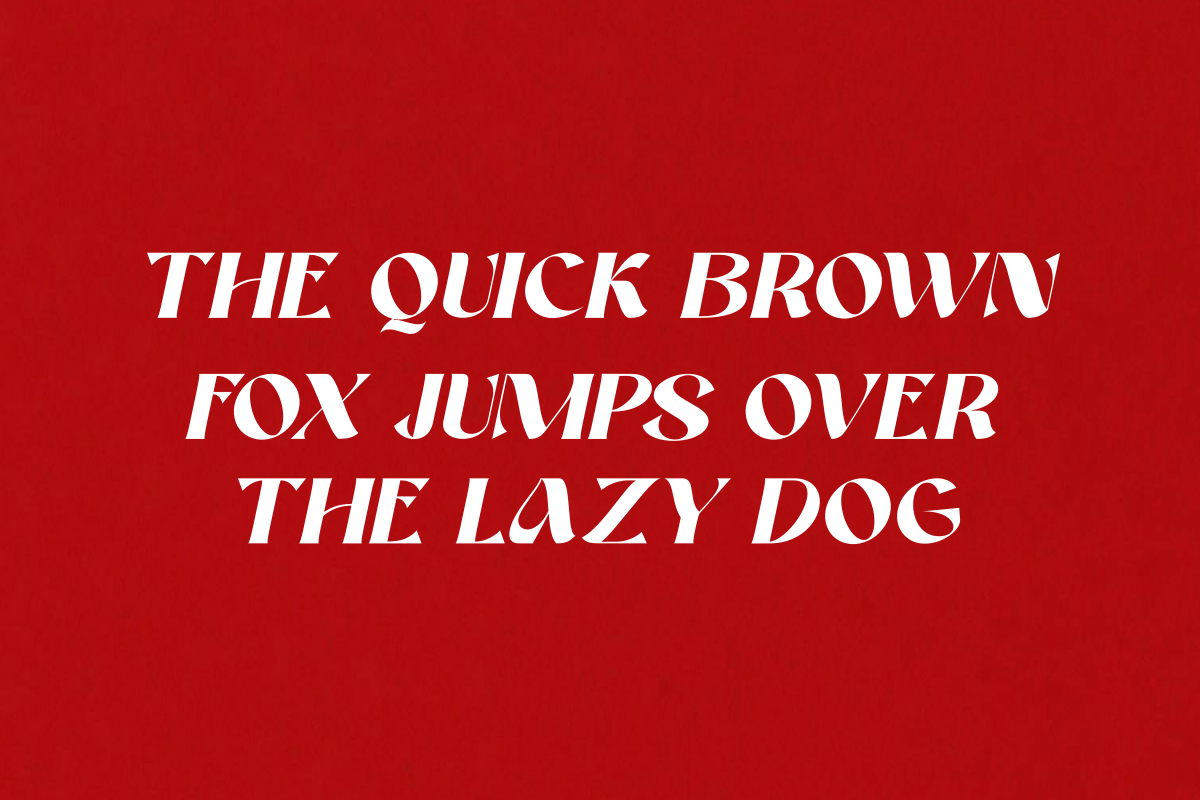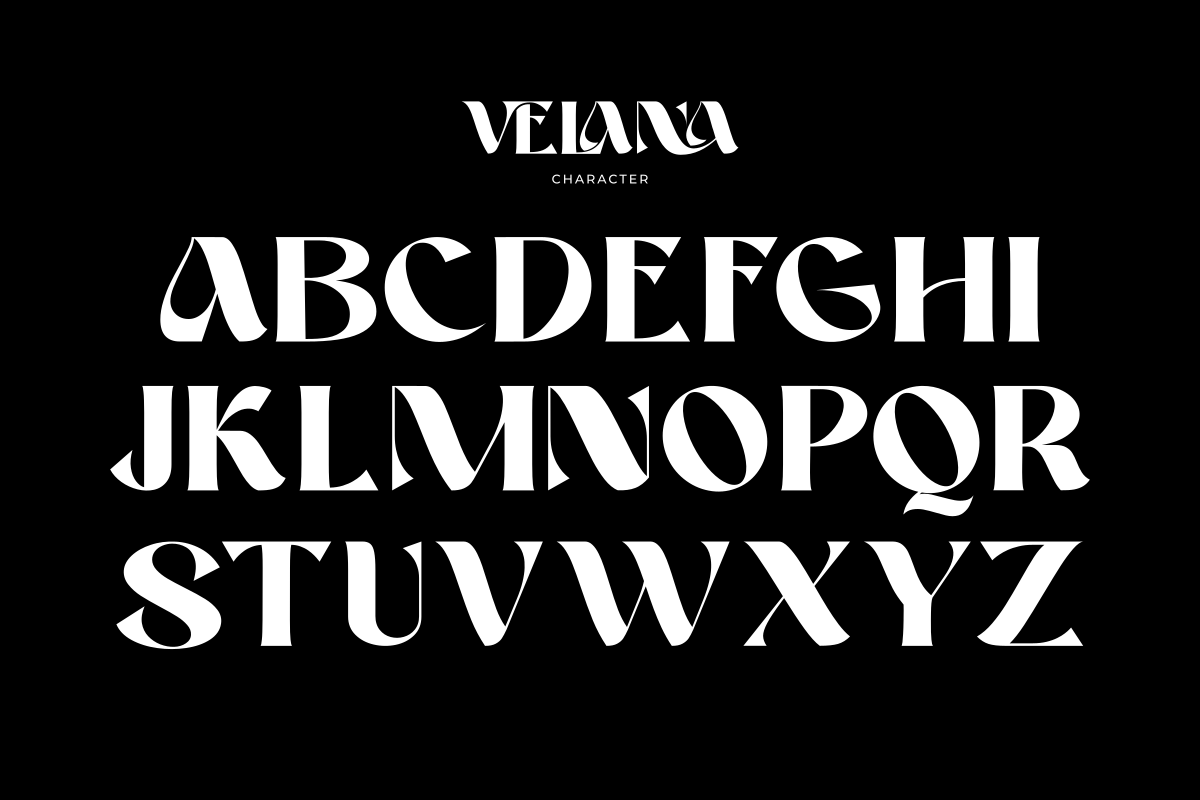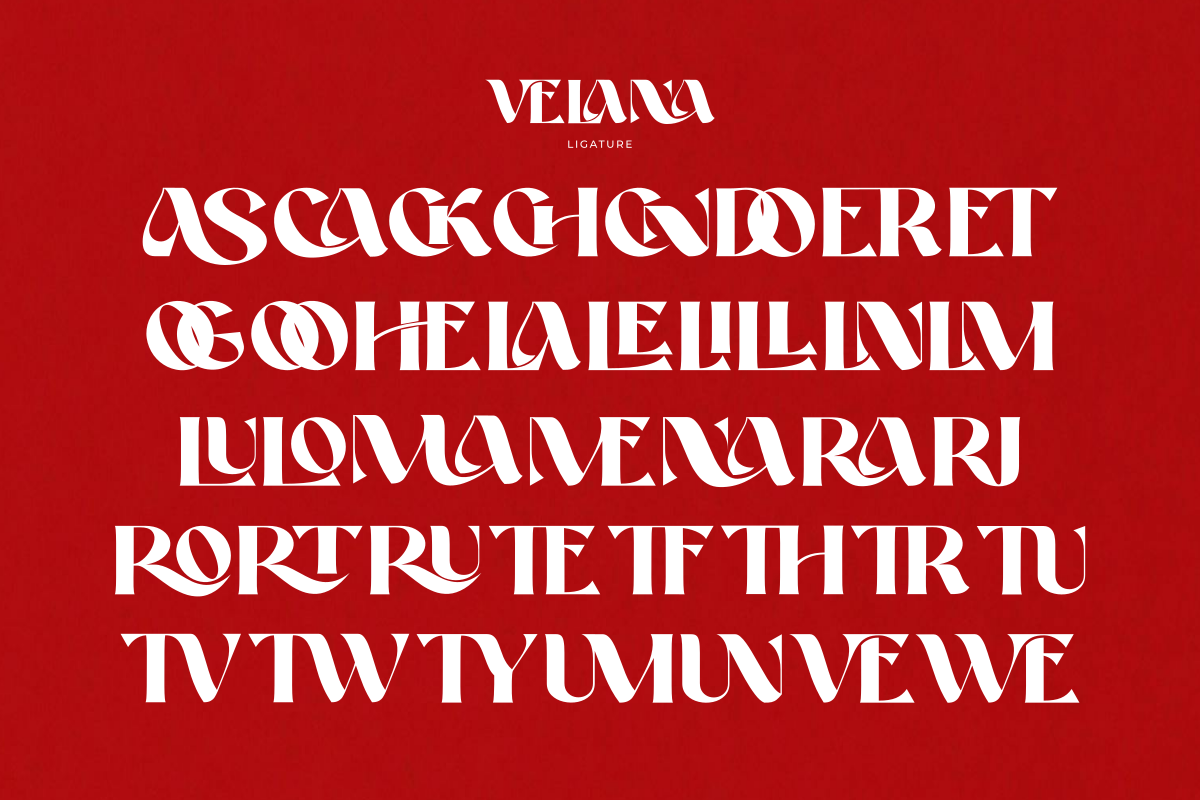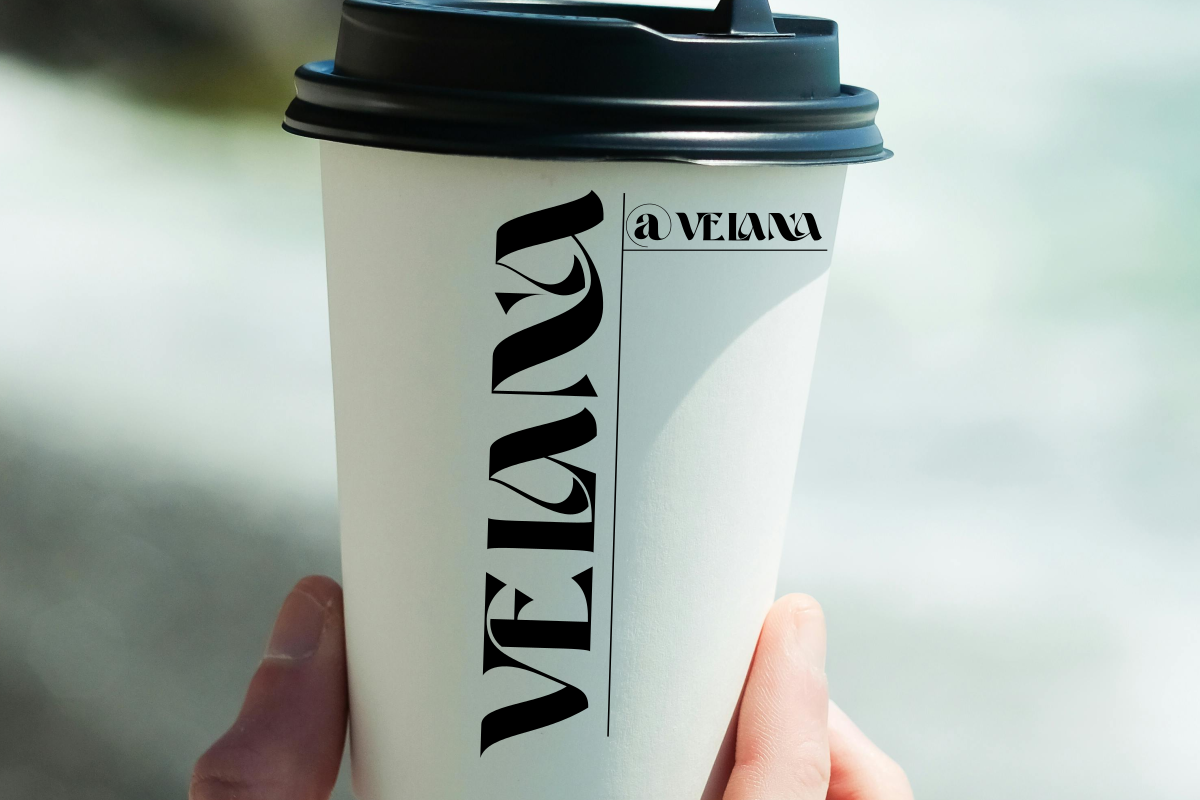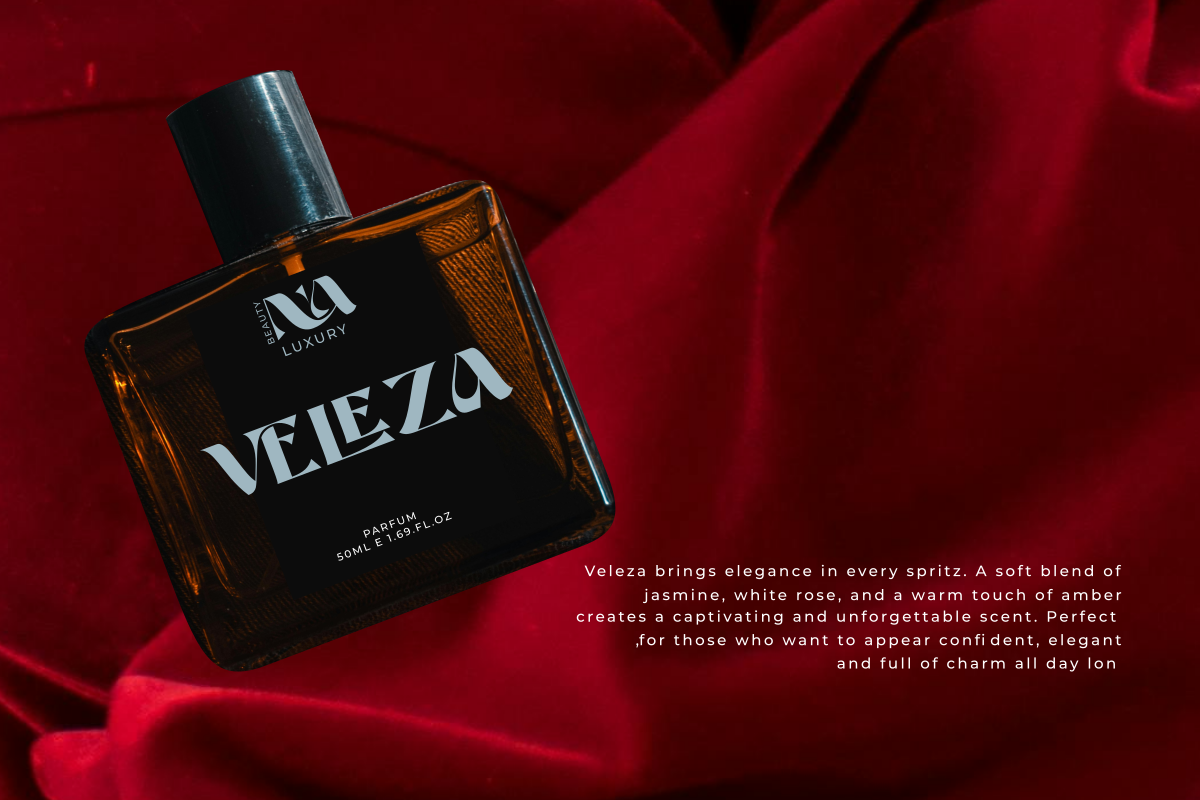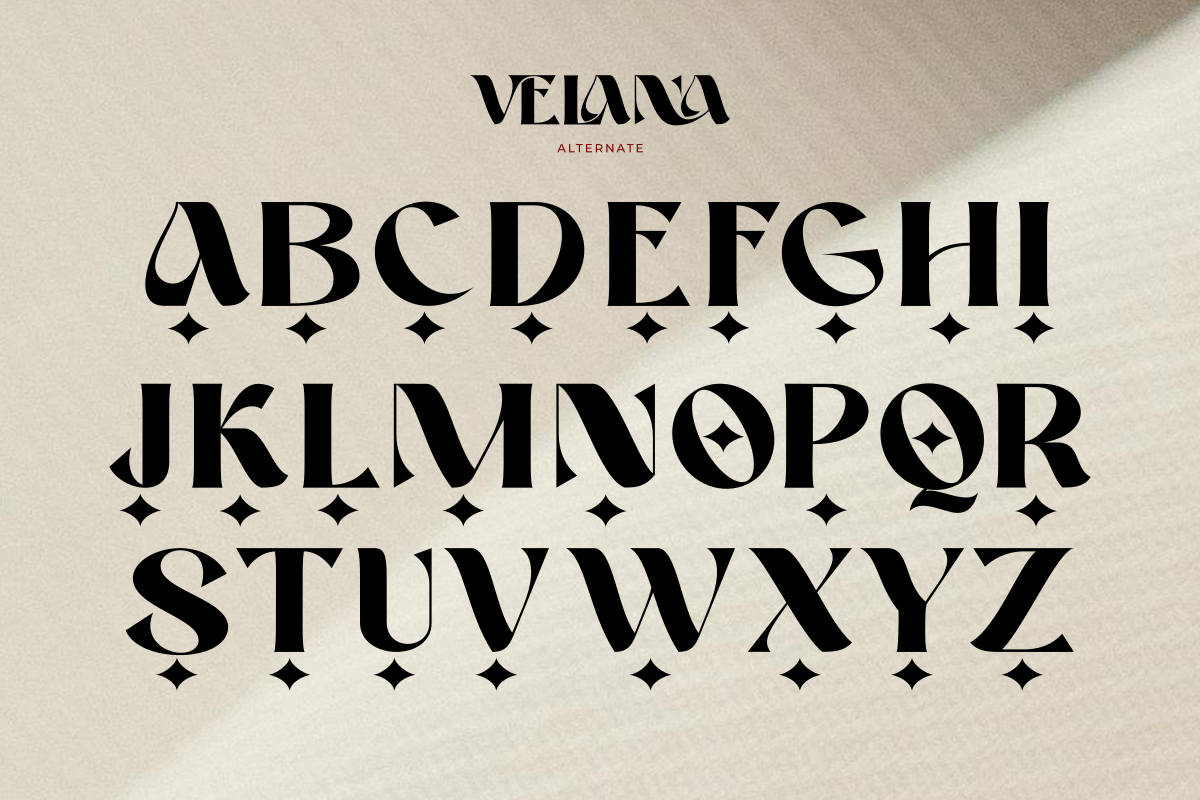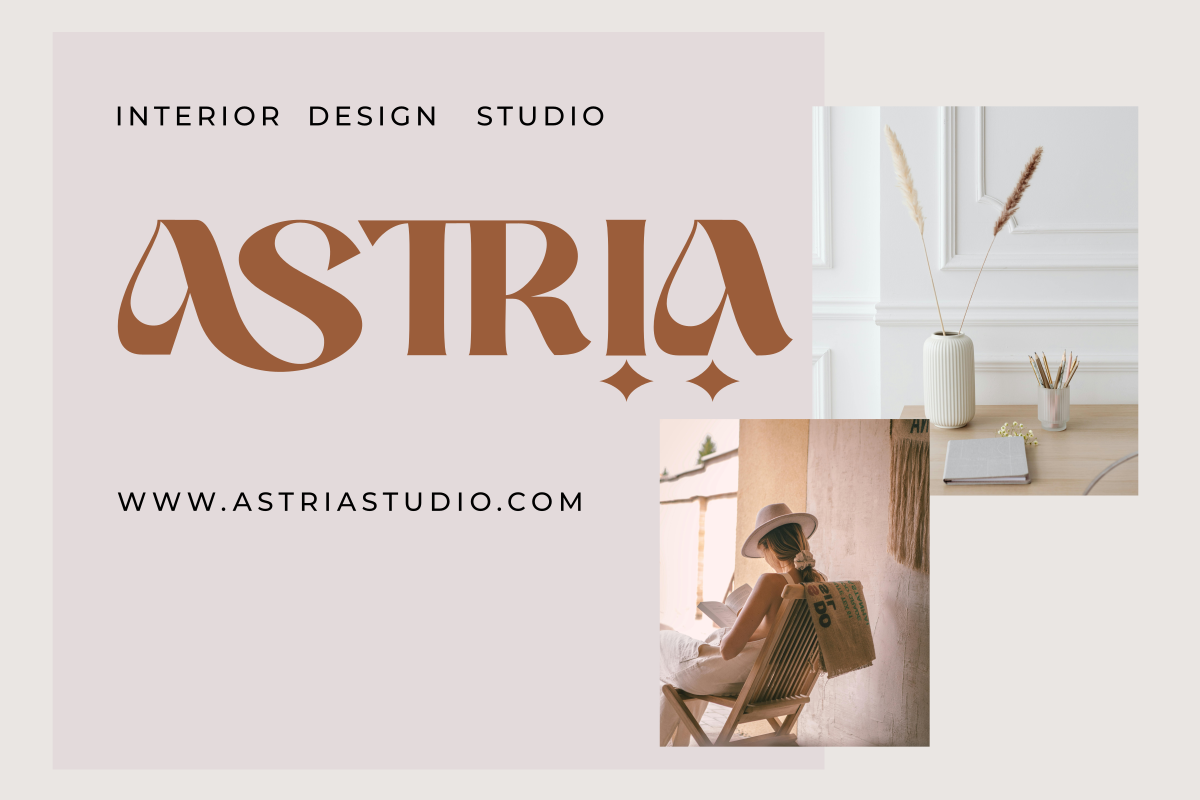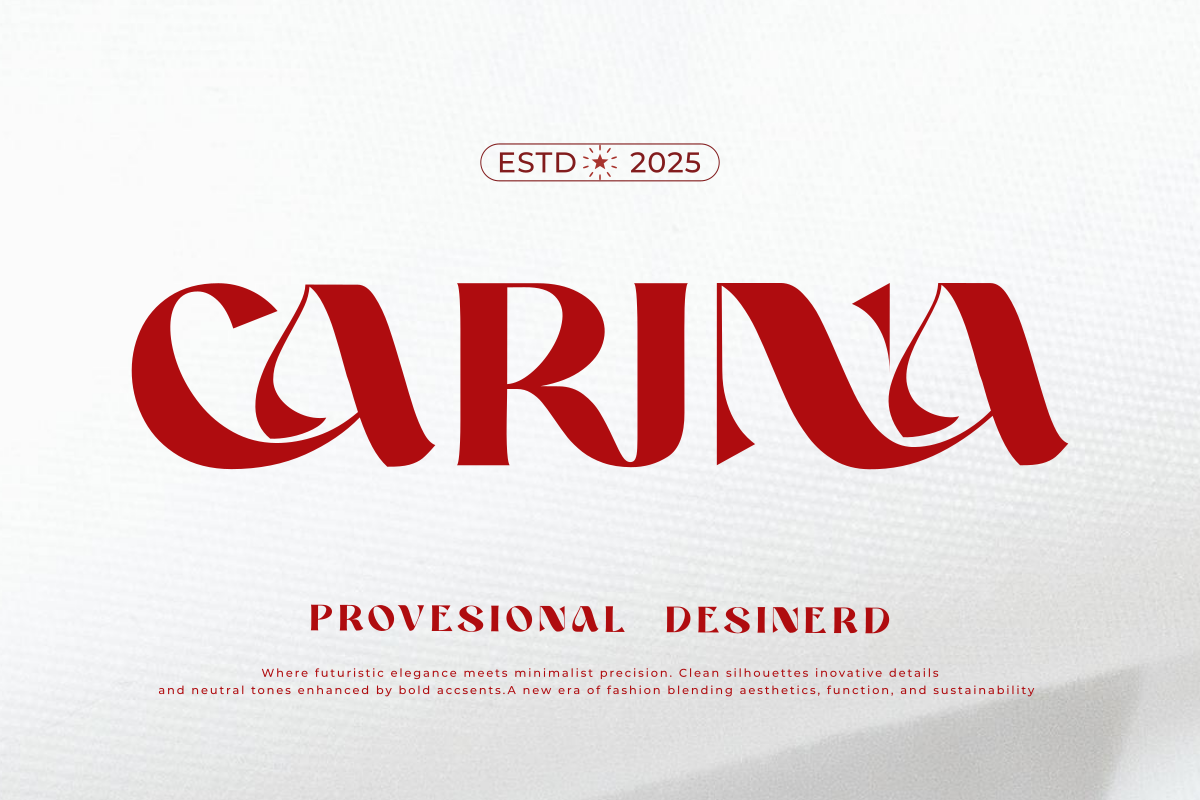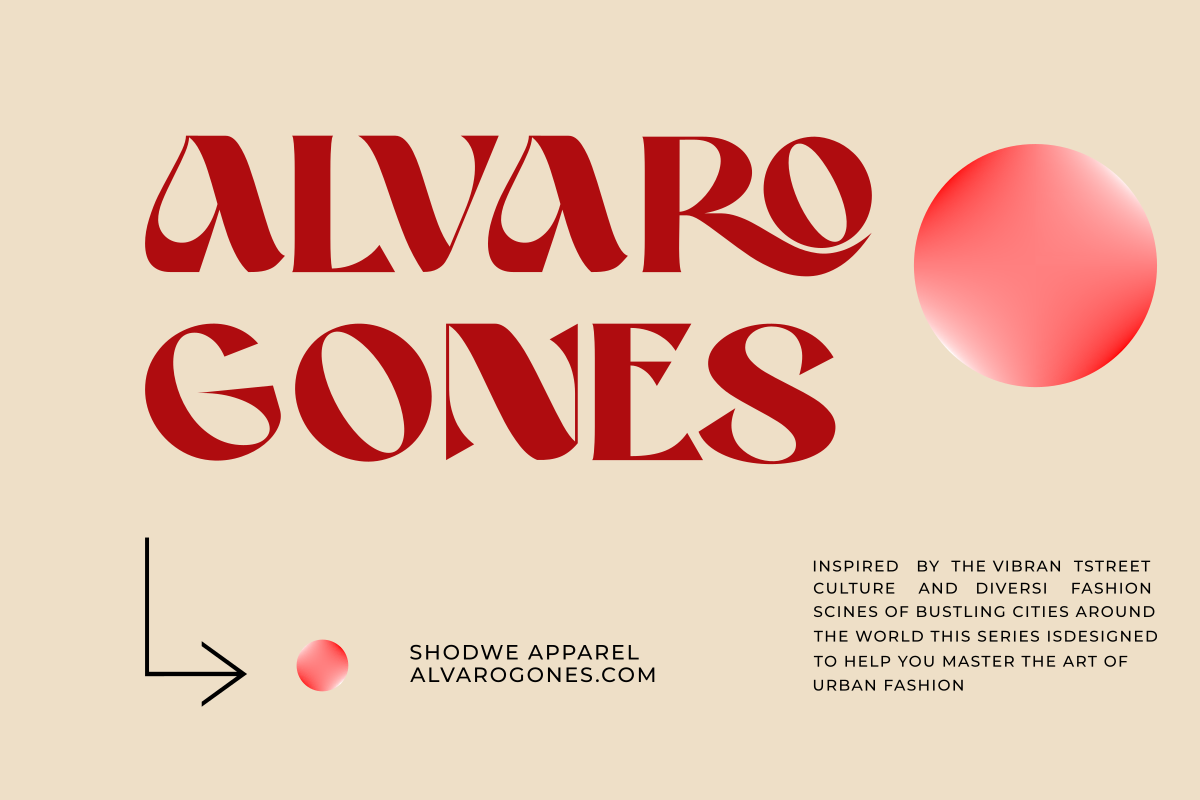
Velana
VELANA is an elegant serif font with unique details that blend modern style with classic charm. Perfect for branding, editorials, and luxury designs. Available in Regular and Oblique styles for maximum versatility in all your creations.